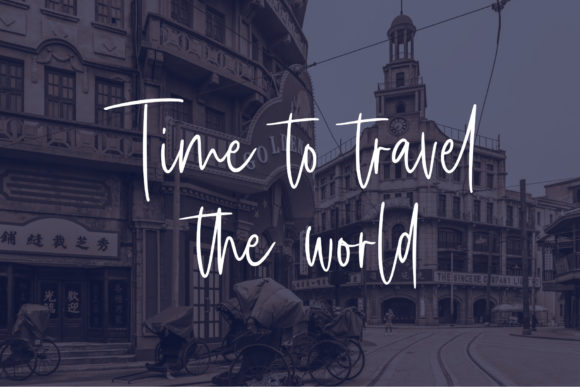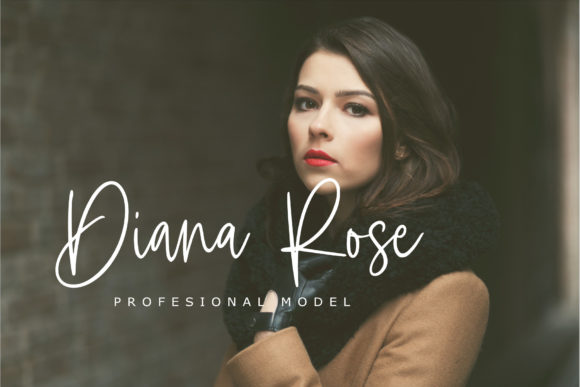
Staylight Font
db-ku.com - Script & Handwritten -- Staylight is consisting of a fashionable signature-style script that makes it look elegant, classy, and touch of luxury and stylish.